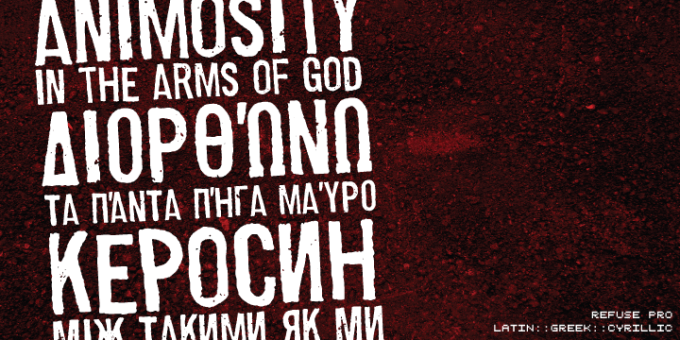
Refuse Pro
Refuse Pro is a stamp-like distressed sans serif typeface based on information stamped on the side of some packaging.
Designer: Michael Wallner
Publisher: Michael Wallner